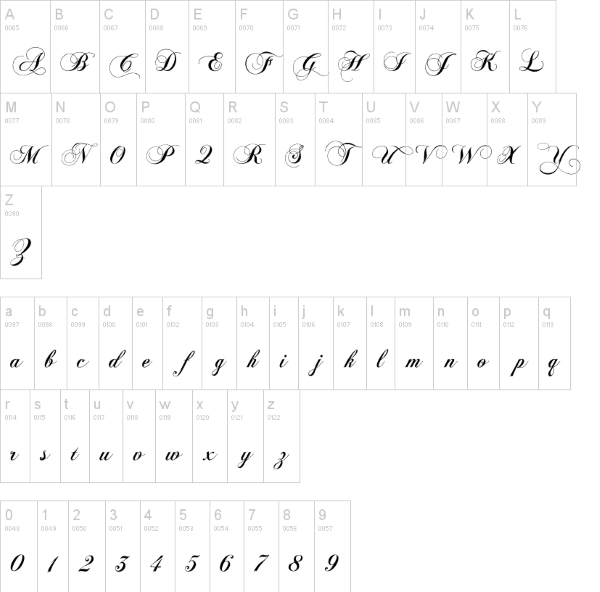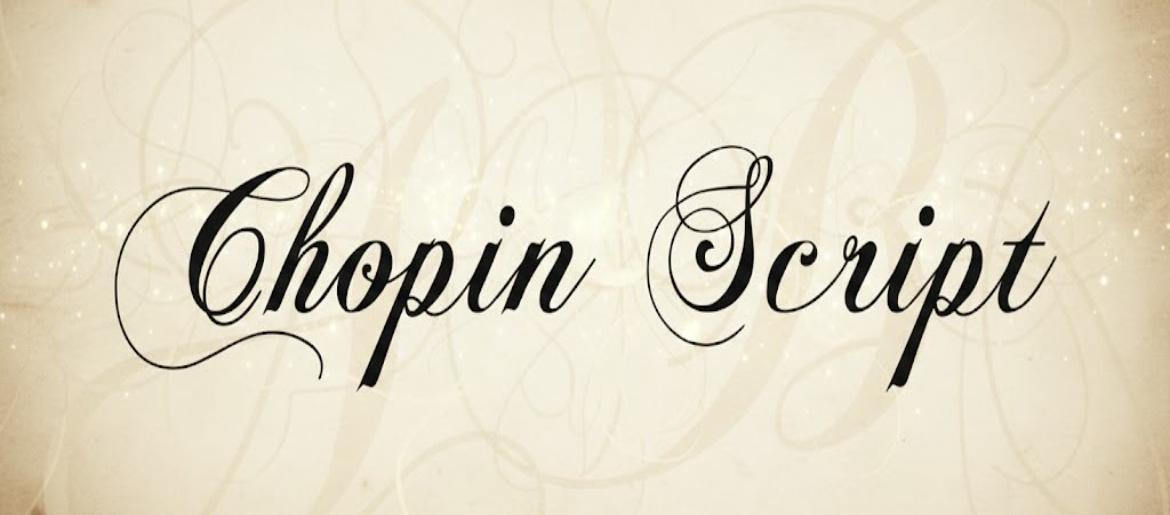
Chopin Script Font
Chopin Script Font is an elegant script typeface inspired by classical handwriting and romantic expression. Its flowing strokes and graceful curves create a refined, artistic feel. Ideal for invitations, wedding designs, logos, quotes, and luxury branding, Chopin Script adds emotion, sophistication, and timeless beauty to both print and digital typography projects.
➤ Font Name: Chopin Script
➤ Designer: ClaudeP
➤ Style: Calligraphy